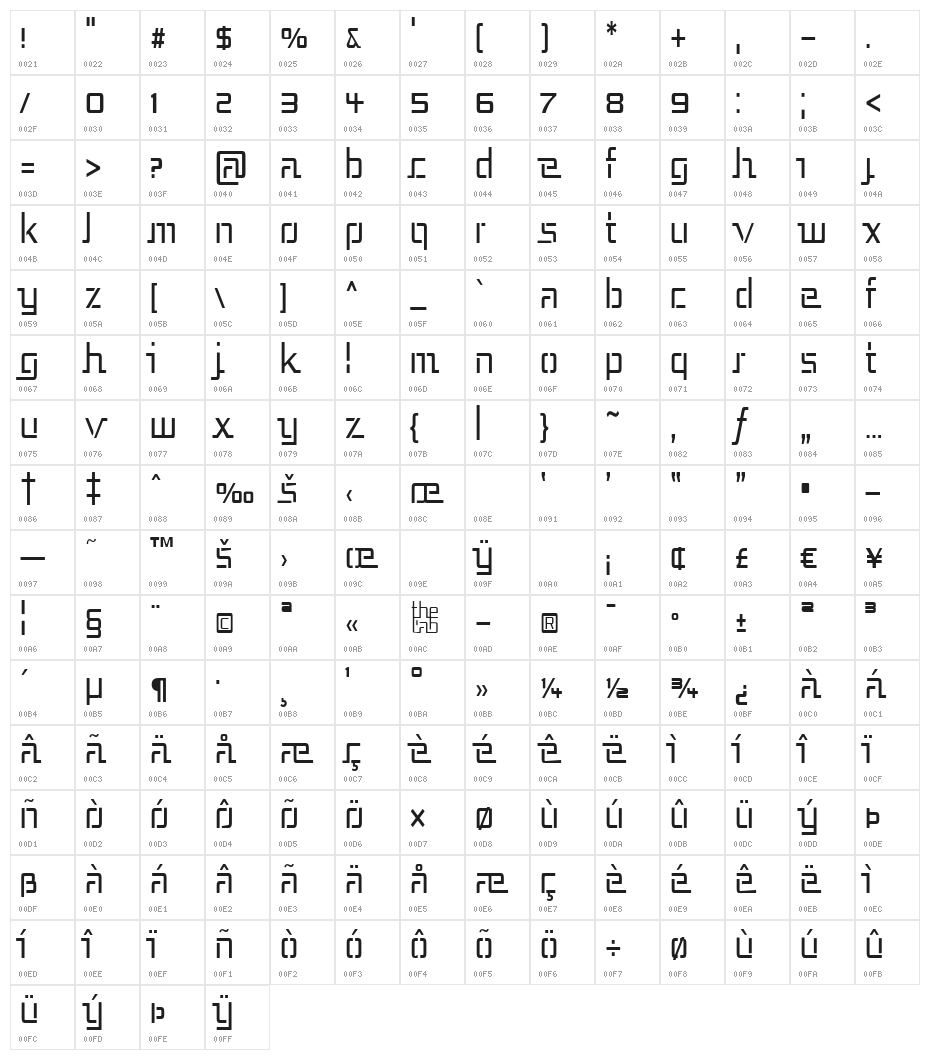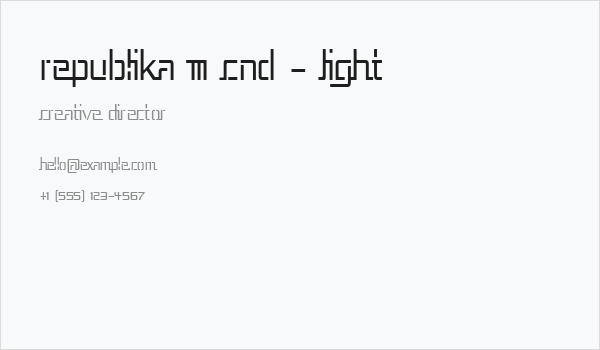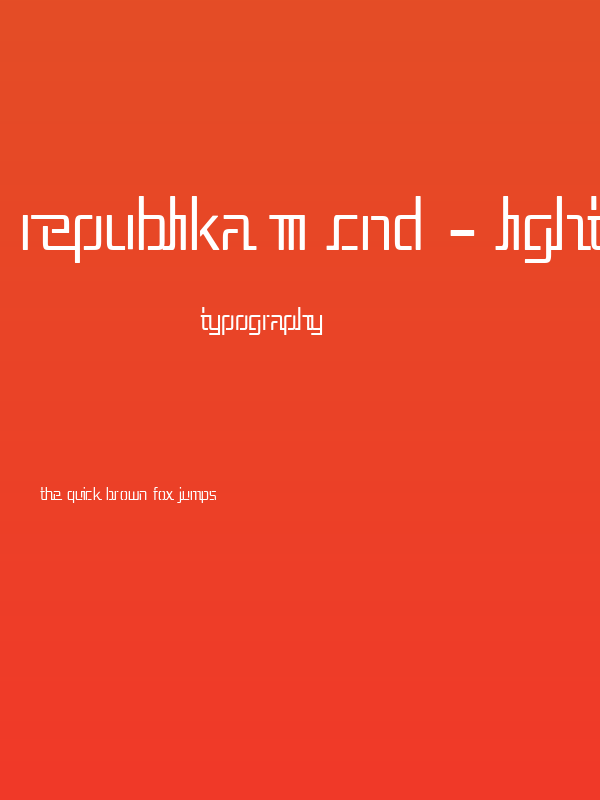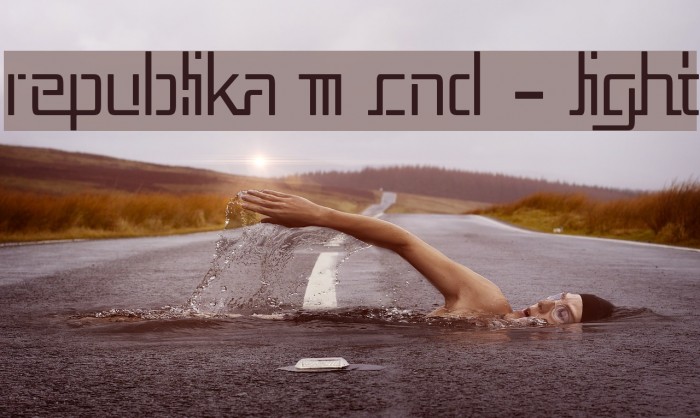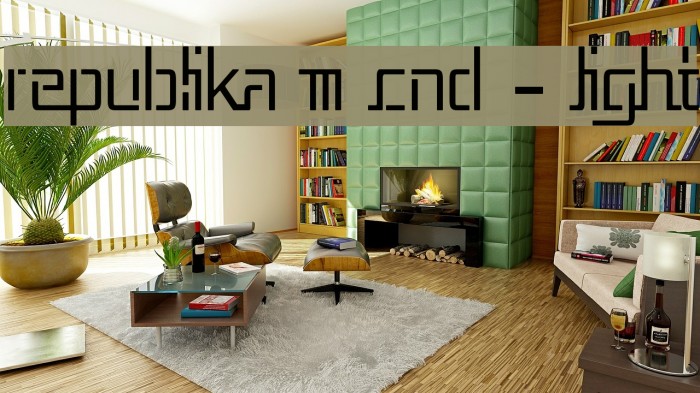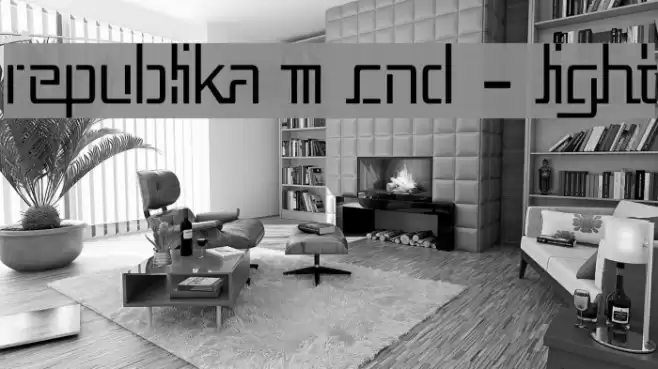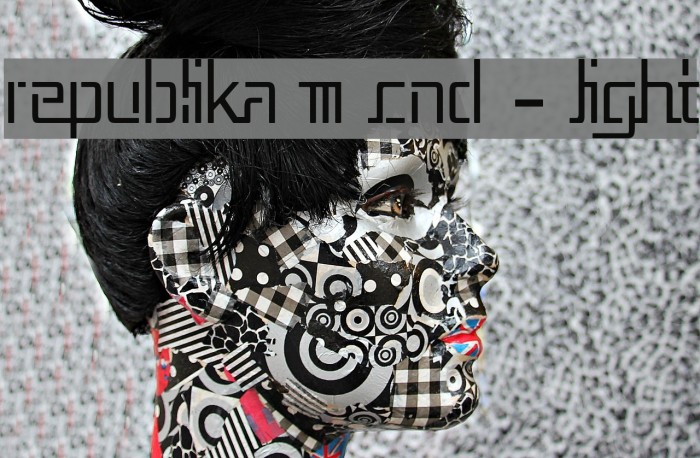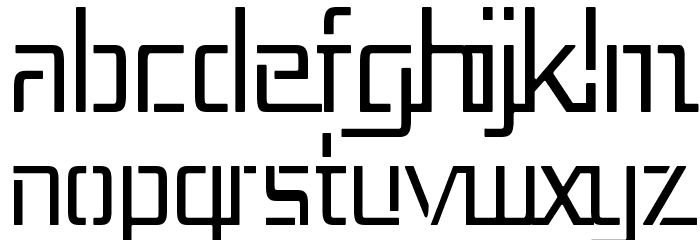
Republika III Cnd - Light Font
Republika III Cnd - Light Description
This font exhibits a modern, geometric style with a condensed structure. The characters are formed with clean, straight lines and sharp angles, giving it a futuristic and technical appearance. The uppercase and lowercase letters maintain a consistent height, contributing to a uniform look. The numerals and special characters follow the same design principles, ensuring a cohesive visual language across all elements. The font's minimalistic and structured design makes it suitable for projects that require a contemporary and sleek aesthetic.
| Overall Style | Futuristic, Technical |
| Use Case | Logos, Headlines, Digital Interfaces |
| Proposed Projects | Ideal for technology branding, modern advertising, digital interfaces, and futuristic design projects. |